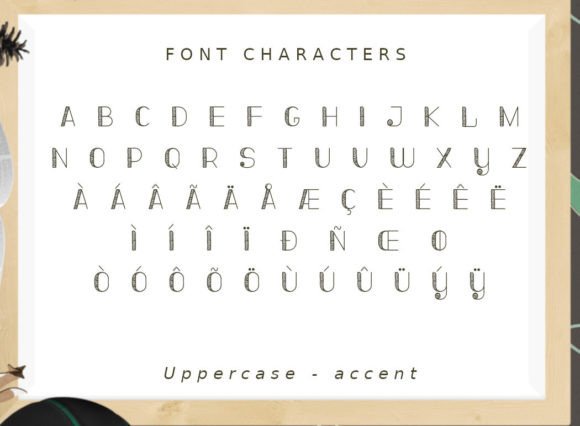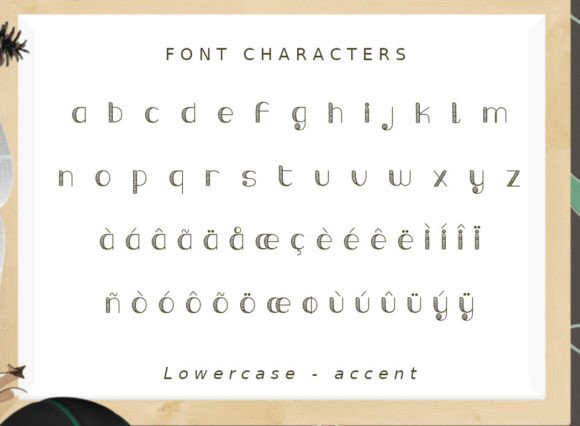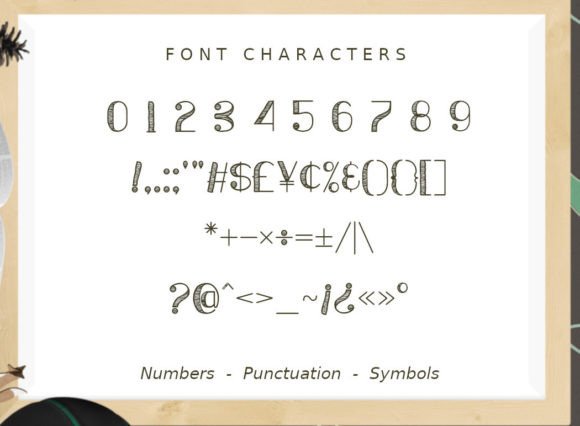
Introduction to Gogety Font
As a designer, you’ve probably had that moment when you’re staring at a blank canvas, trying to come up with the perfect font to match your creative vision. The words “free download” dance in your head, but you know that quality matters more than the price tag. That’s where the Gogety Font comes in – a high-quality, realistic handwritten font that adds a personal touch to any design project.
With its beautiful natural pencil scratch, the Gogety Font is perfect for classic or natural theme projects that need a little extra love. Whether you’re working on a wedding invitation, a greeting card, or a quote that needs to stand out, this font is a design resource that’s hard to beat. Its transparent background makes it easy to work with, and its versatility means you can use it for a wide range of creative projects.
Key Features of Gogety Font
- High-quality, professional design ideal for creative projects
- Unique, modern design elements perfect for adding a touch of sophistication to any project
- Comprehensive character set, including uppercase and lowercase letters, numbers, and punctuation
Honest Review: Gogety Font
As a designer, I’m always on the lookout for high-quality design resources to enhance my creative projects. Recently, I stumbled upon the Gogety Font, which I’d like to share my honest review with you.
- ✨ High-quality design: The Gogety Font offers crisp and clean lines, making it perfect for various design applications.
- ✨ Transparent background: The font’s transparent background allows for seamless integration with various design elements, adding flexibility to my creative projects.
- ⚠️ Limited font styles: Compared to other fonts, the Gogety Font has a limited number of styles, which might not cater to designers seeking a wide range of options.
- ⚠️ Not suitable for small text: Due to its clean design, the font might not be the best choice for small text, as it can become difficult to read.
Overall, the Gogety Font is a solid addition to any designer’s toolkit. While it may have its limitations, its high-quality design and free download make it a great resource for creative projects. I’d recommend giving it a try and seeing how it can enhance your designs.
Use the Gogety Font for various creative projects, such as:
- Typography-based designs
- Advertising materials
Tips for Getting the Most Out of Gogety Font
To get the most out of the Gogety Font, experiment with different font sizes, colors, and combinations to create visually appealing designs.